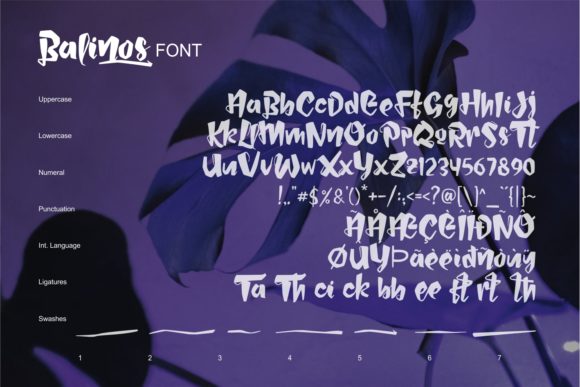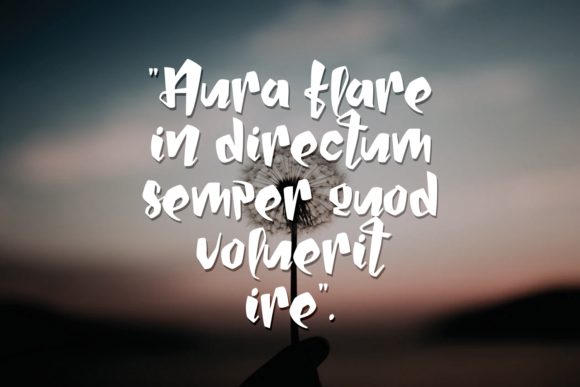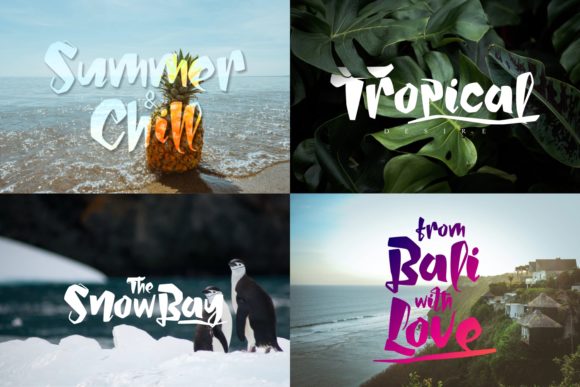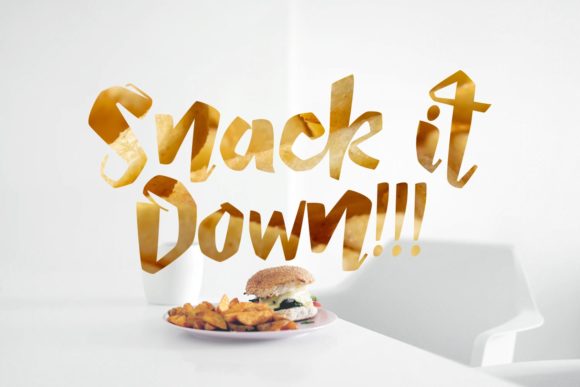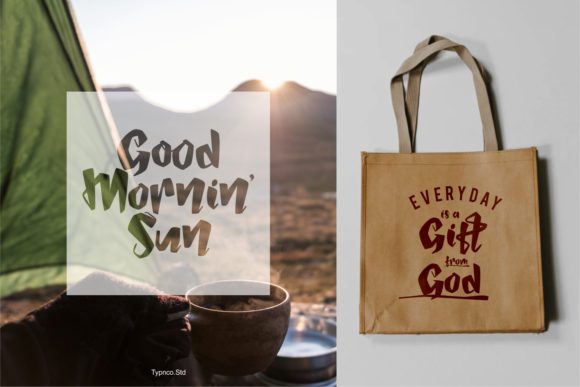
Introducing Balinos Font: The Ultimate Whimsical Handwritten Display Font
Are you looking for a font that can add a touch of playfulness and uniqueness to your designs? Look no further than Balinos Font! This whimsical handwritten display font is perfect for designers and crafters who want to make their projects stand out from the crowd. With its bulky geometric glyphs, Balinos Font is sure to charm your audience and leave a lasting impression.
What Makes Balinos Font So Special?
Balinos Font is a one-of-a-kind font that boasts a range of features that make it perfect for a variety of design projects. Here are just a few reasons why you should consider adding Balinos Font to your collection:
- Whimsical Handwritten Style: Balinos Font has a playful, handwritten style that’s perfect for designs that need a personal touch.
- Bulkly Geometric Glyphs: The font’s bulky geometric glyphs give it a unique and eye-catching look that’s sure to grab attention.
- Versatile: This font is suitable for a wide range of design projects, including logos, packaging, headlines, posters, merchandise, social media posts, quotes, labels, and more!
Use Balinos Font to Elevate Your Designs
Balinos Font is the perfect addition to any design project that needs a touch of whimsy and playfulness. Here are just a few ideas for how you can use this amazing font:
- Logos: Create a unique and memorable logo for your business or brand with Balinos Font.
- Packaging: Add a touch of personality to your product packaging with this eye-catching font.
- Headlines: Make your headlines stand out with Balinos Font’s bold and playful style.
- Posters: Create eye-catching posters for events, promotions, or advertising campaigns with this font.
- Merchandise: Add a touch of whimsy to your merchandise, such as t-shirts, mugs, or tote bags, with Balinos Font.
- Social Media Posts: Make your social media posts stand out with this unique and playful font.
- Quotes: Create inspiring and eye-catching quotes with Balinos Font.
- Labels: Add a touch of personality to your labels with this font.
Why Designers and Crafters Love Balinos Font
Designers and crafters love Balinos Font for its unique and playful style. Here are just a few reasons why:
- Customizable: With a range of glyphs and swashes available, you can customize Balinos Font to fit your design needs.
- Unique: This font is one-of-a-kind, so you can be sure that your designs will stand out from the crowd.
- High-Quality: Balinos Font is a high-quality font that’s perfect for professional designs.
In conclusion, Balinos Font is a must-have for designers and crafters who want to add a touch of whimsy and playfulness to their designs. With its bulky geometric glyphs, PUA encoding, and versatile style, this font is perfect for a wide range of design projects. Whether you’re creating logos, packaging, headlines, or social media posts, Balinos Font is sure to make your designs stand out from the crowd. So why wait? Get your hands on Balinos Font today and start creating unique and eye-catching designs!